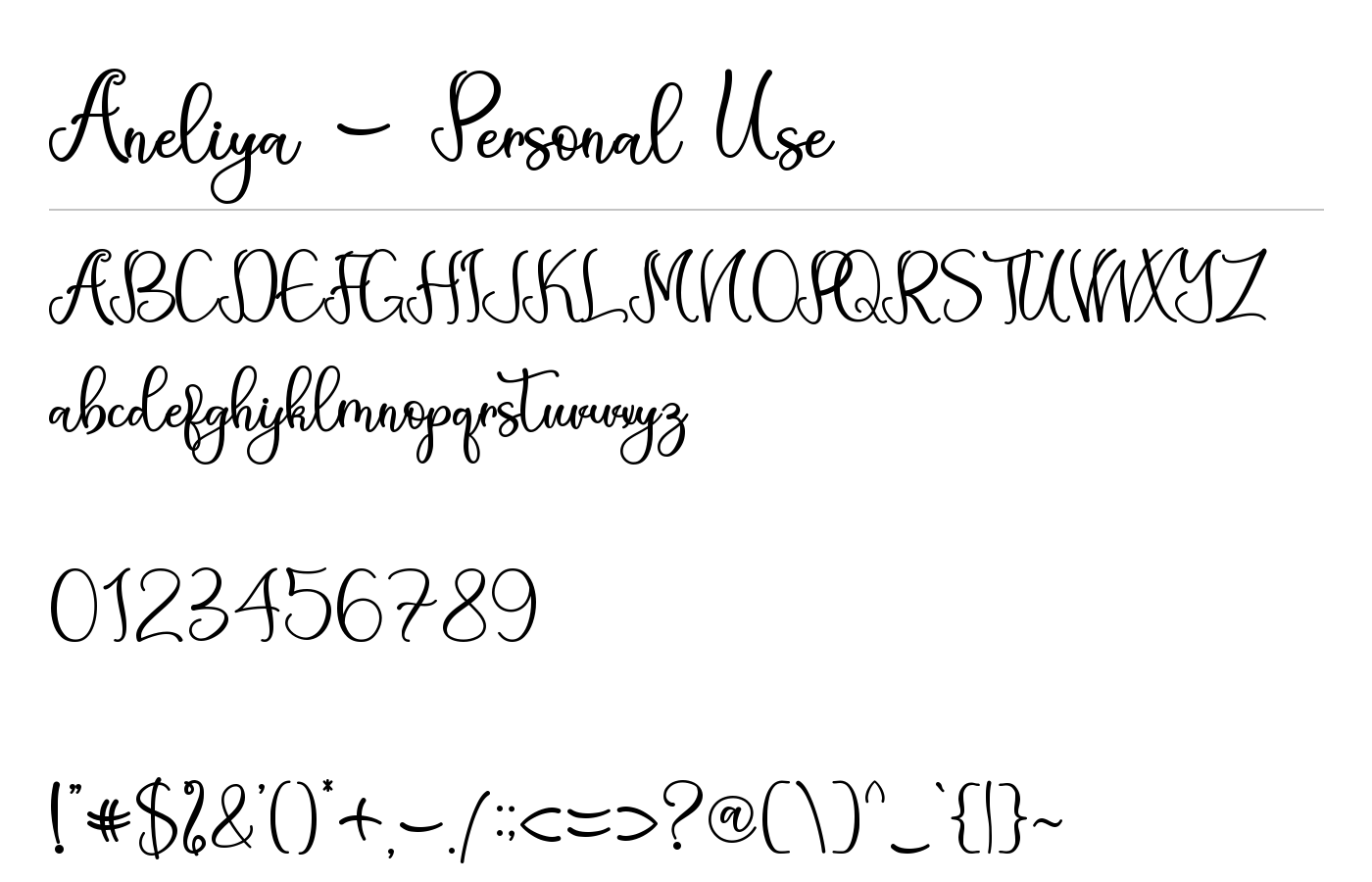
Aneliya is a delicate script font characterized by its slender, flowing strokes and elegant handwritten style. Its smooth, casual curves and slightly whimsical letterforms make it perfect for personal projects, invitations, and branding that seek a friendly yet sophisticated touch. This font works well in designs that aim to convey warmth, creativity, and approachable elegance.
Aneliya - Personal Use Font
About Aneliya - Personal Use Font